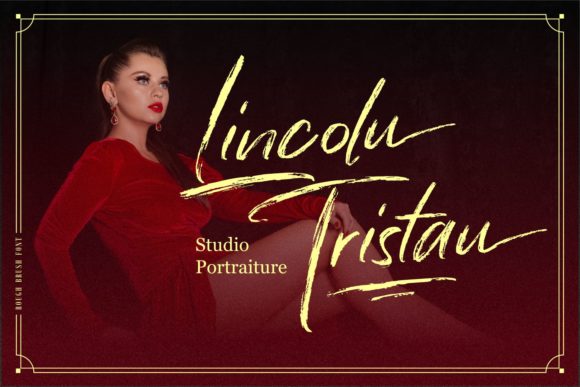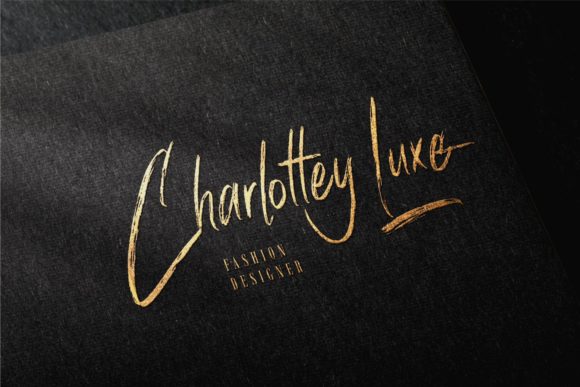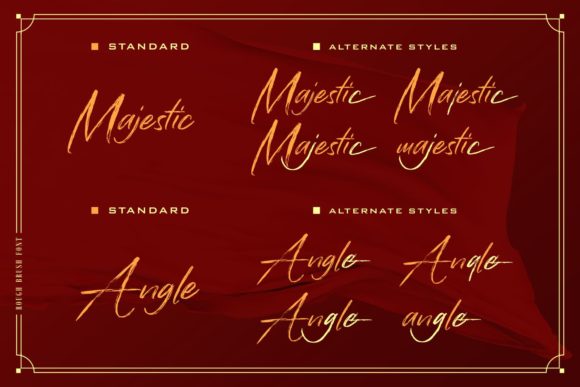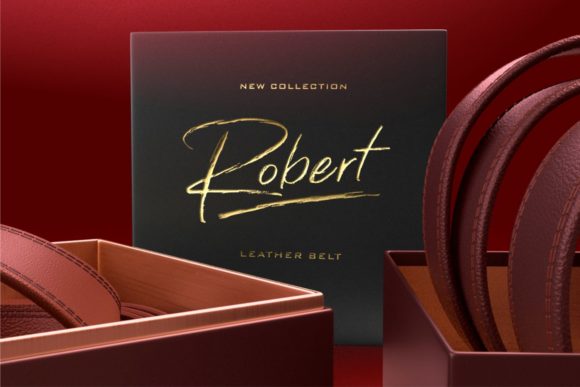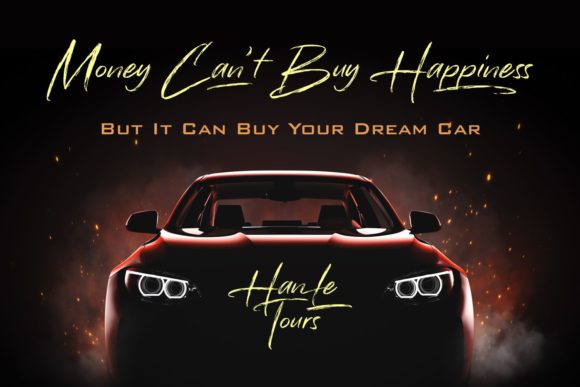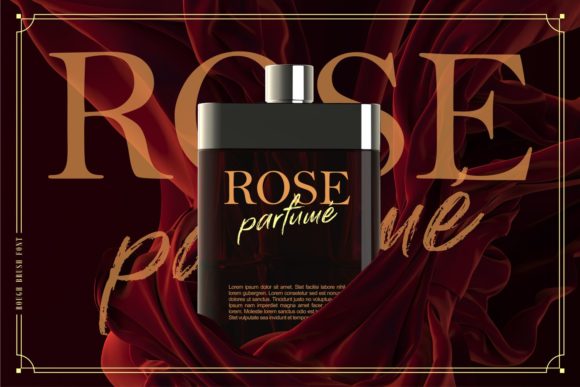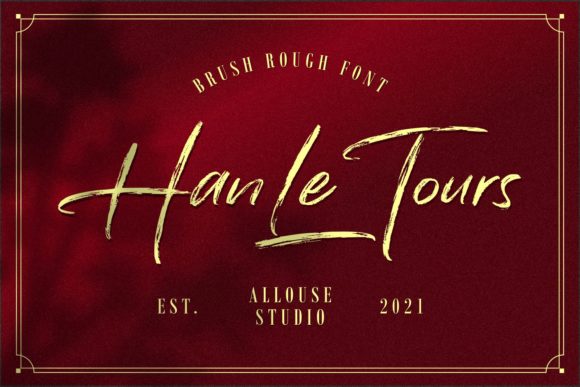
Introducing Han Le Tours Font: Elevate Your Designs with a Personal Touch
Are you tired of using the same old fonts in your designs? Do you want to add a personal touch that sets your work apart from the rest? Look no further than Han Le Tours Font, a spectacular brush-style handwritten font that’s perfect for designers and crafters alike. With its unique and elegant script, Han Le Tours is sure to add a special touch to any design idea you can think of!
What is Han Le Tours Font?
Han Le Tours Font is a beautiful brush-style handwritten font that’s designed to mimic the look and feel of handwritten script. With its flowing lines and elegant strokes, this font is perfect for adding a personal touch to any design. Whether you’re working on a logo, a poster, a card, or any other type of design, Han Le Tours Font is sure to make it stand out.
Key Features of Han Le Tours Font
- Brush-style script: Han Le Tours Font features a unique brush-style script that’s perfect for adding a personal touch to your designs.
- Elegant strokes: The font’s elegant strokes and flowing lines make it perfect for a wide range of design applications.
- Handwritten feel: Han Le Tours Font has a genuine handwritten feel that’s sure to add a personal touch to any design.
Uses for Han Le Tours Font
Han Le Tours Font is a versatile font that can be used for a wide range of design applications. Here are just a few ideas to get you started:
- Logos and branding: Use Han Le Tours Font to create a unique and memorable logo for your business or brand.
- Posters and flyers: Add a personal touch to your posters and flyers with Han Le Tours Font.
- Cards and invitations: Use Han Le Tours Font to create beautiful and elegant cards and invitations.
- Social media graphics: Add a personal touch to your social media graphics with Han Le Tours Font.
- Packaging design: Use Han Le Tours Font to add a personal touch to your packaging design.
Why Choose Han Le Tours Font?
There are many fonts to choose from, but Han Le Tours Font stands out from the rest. Here are just a few reasons why:
- Unique and elegant: Han Le Tours Font is a unique and elegant font that’s sure to add a personal touch to any design.
- High-quality: The font is high-quality and designed to look great in any design application.
Tips for Using Han Le Tours Font
Here are a few tips for using Han Le Tours Font in your designs:
- Use it sparingly: Han Le Tours Font is a beautiful font, but it can be overwhelming if used too much. Use it sparingly to add a personal touch to your designs.
- Pair it with other fonts: Han Le Tours Font pairs well with other fonts, so don’t be afraid to experiment with different combinations.
- Experiment with colors: Han Le Tours Font looks great in a variety of colors, so experiment with different colors to find the one that works best for your design.